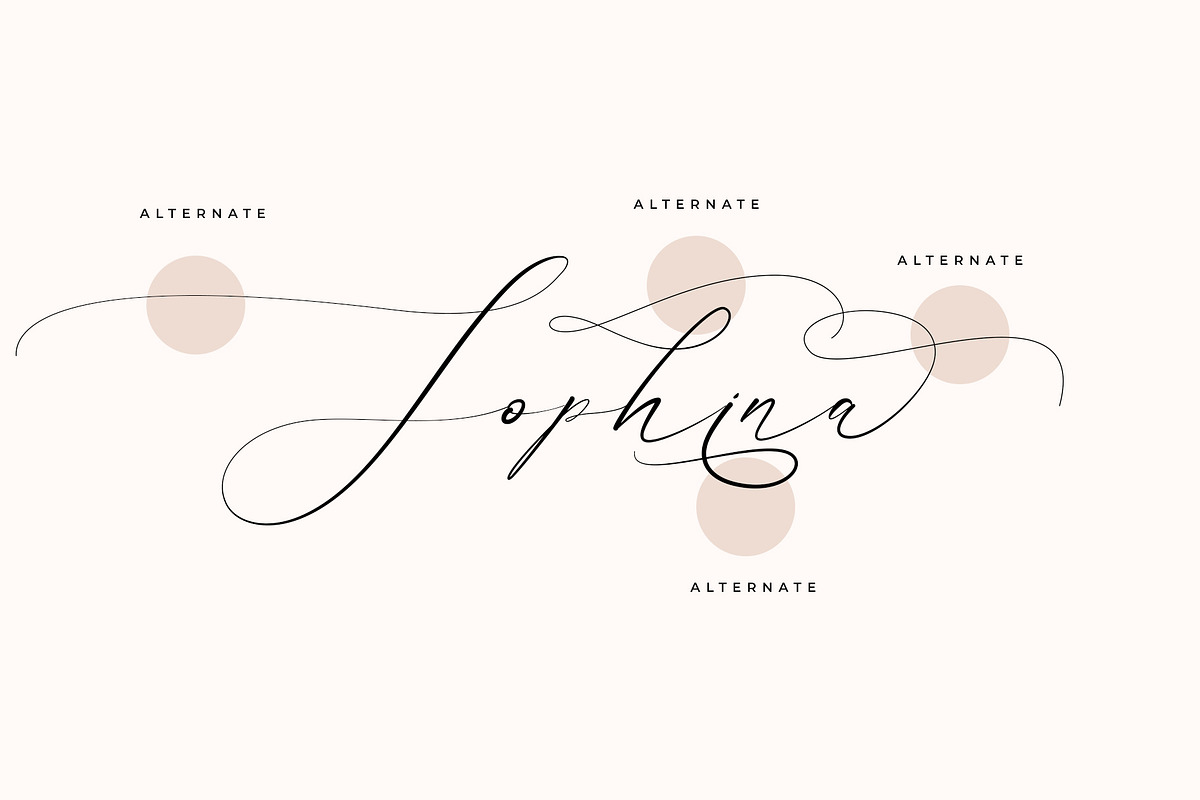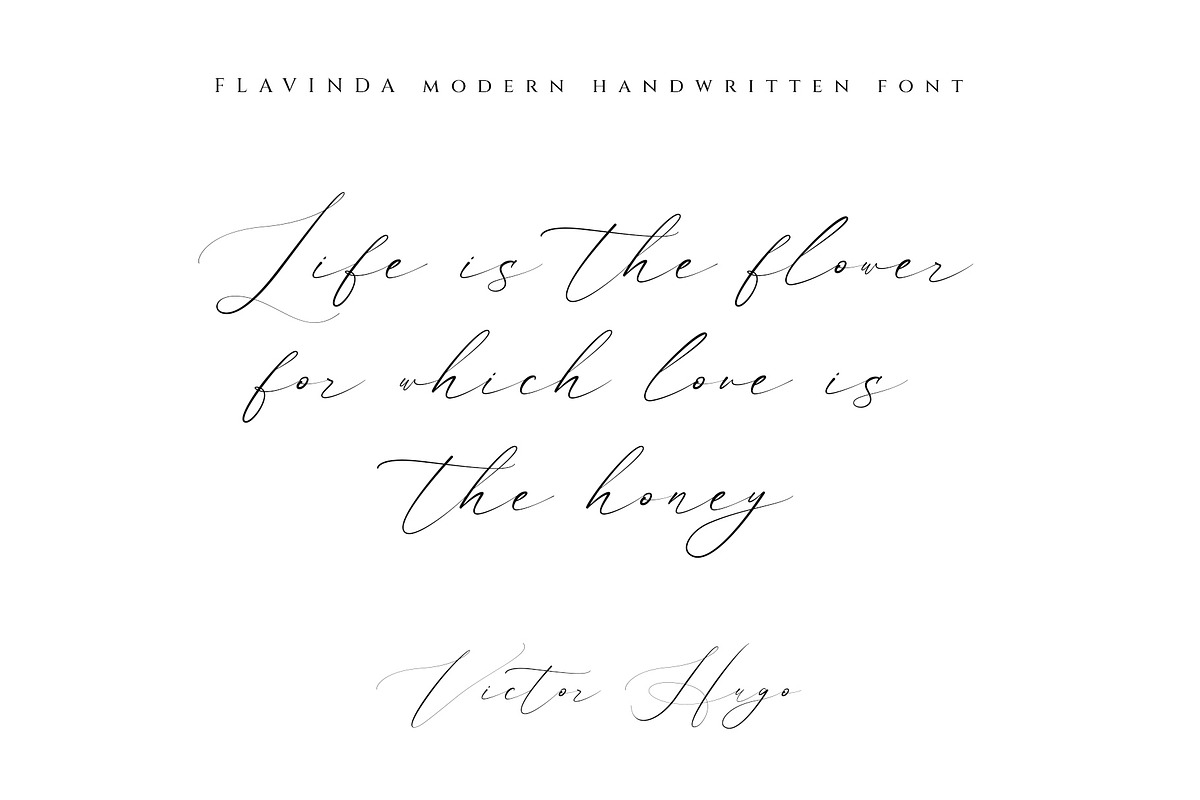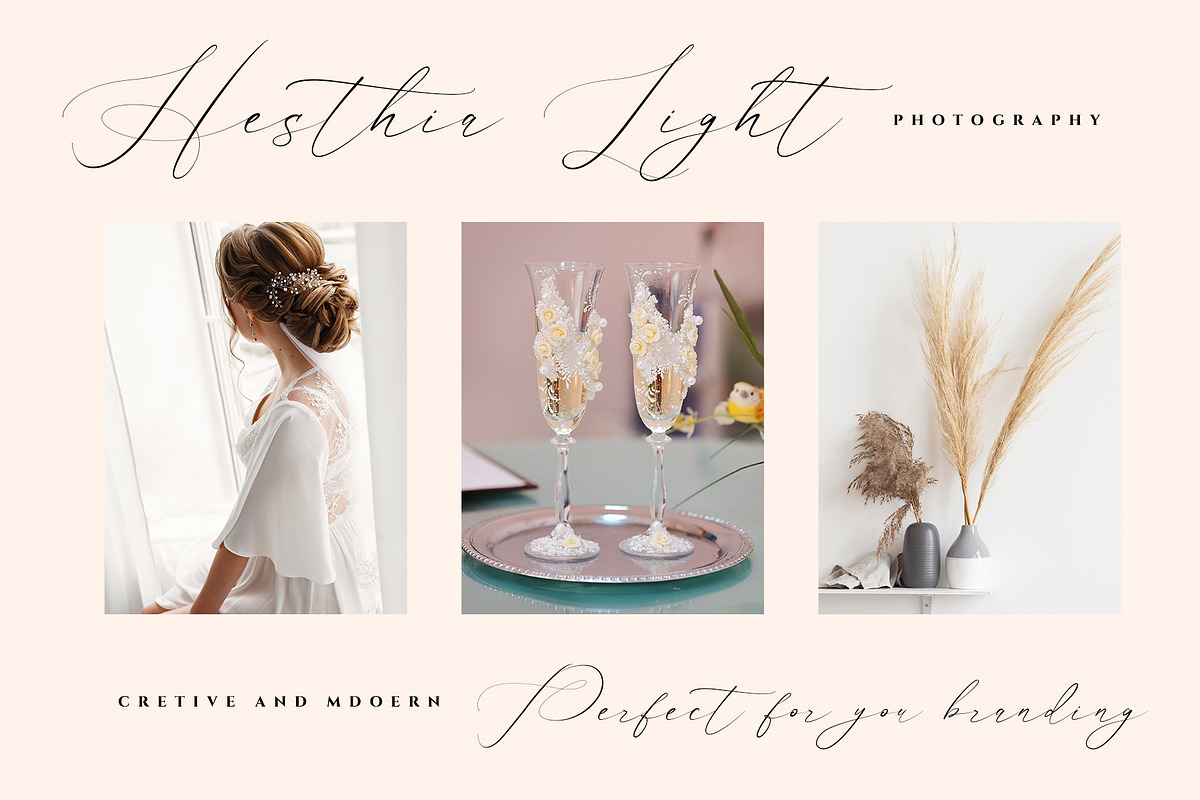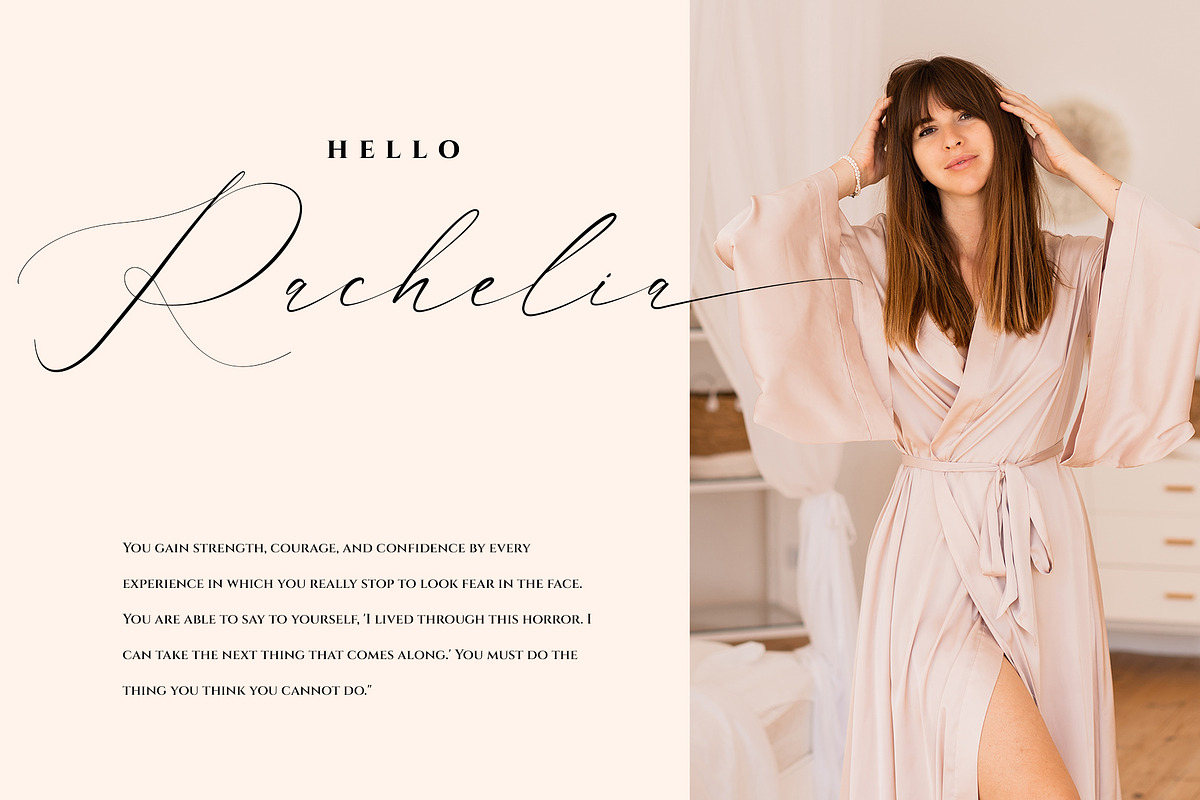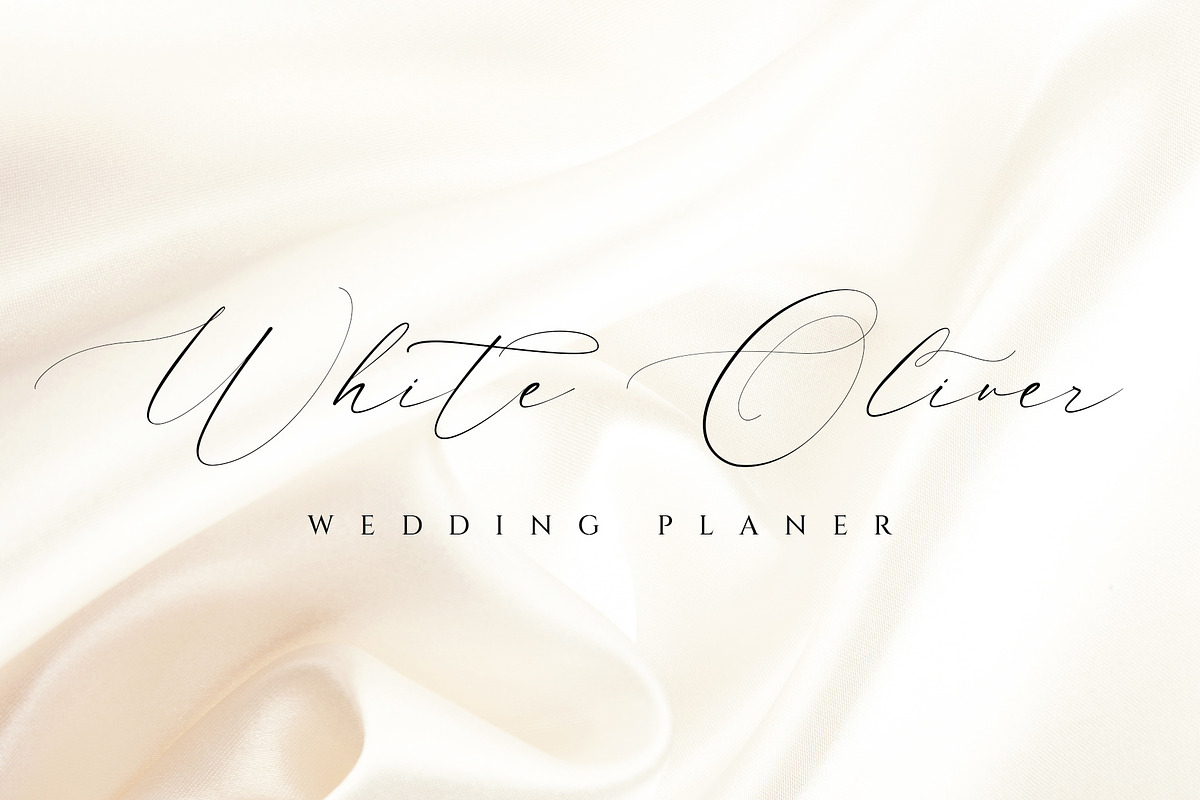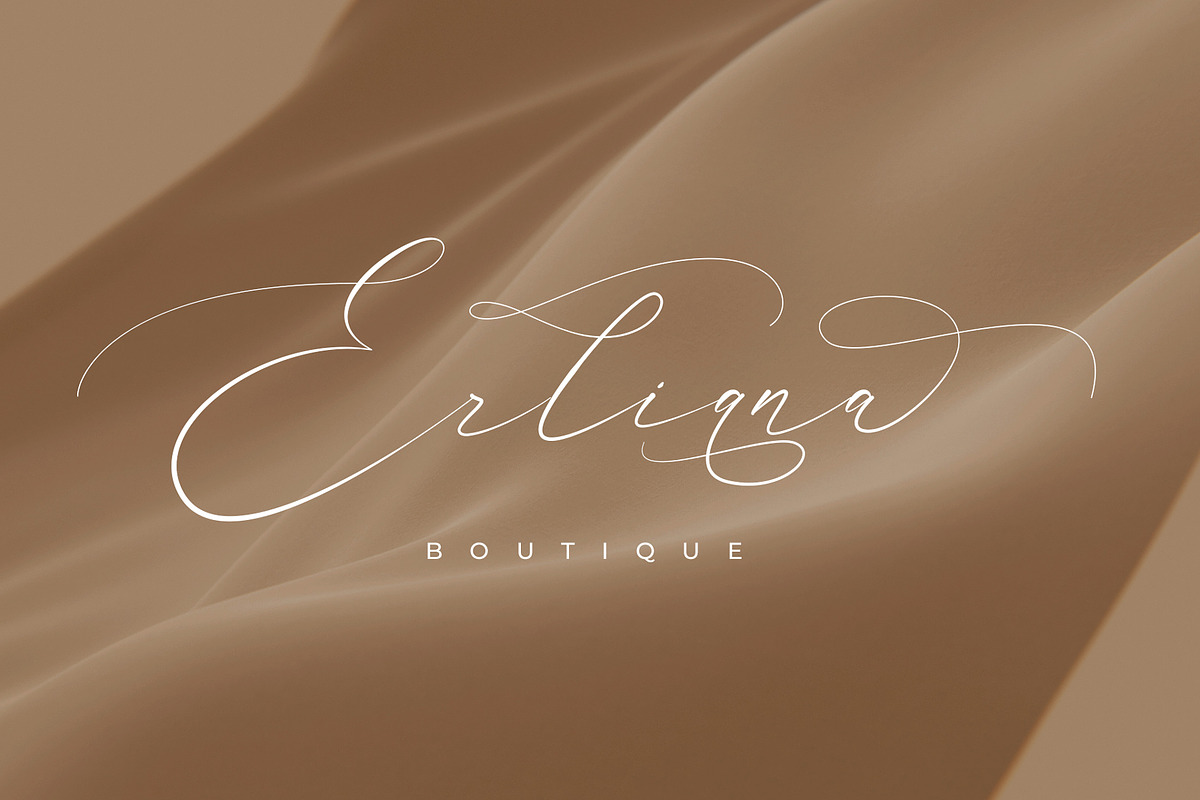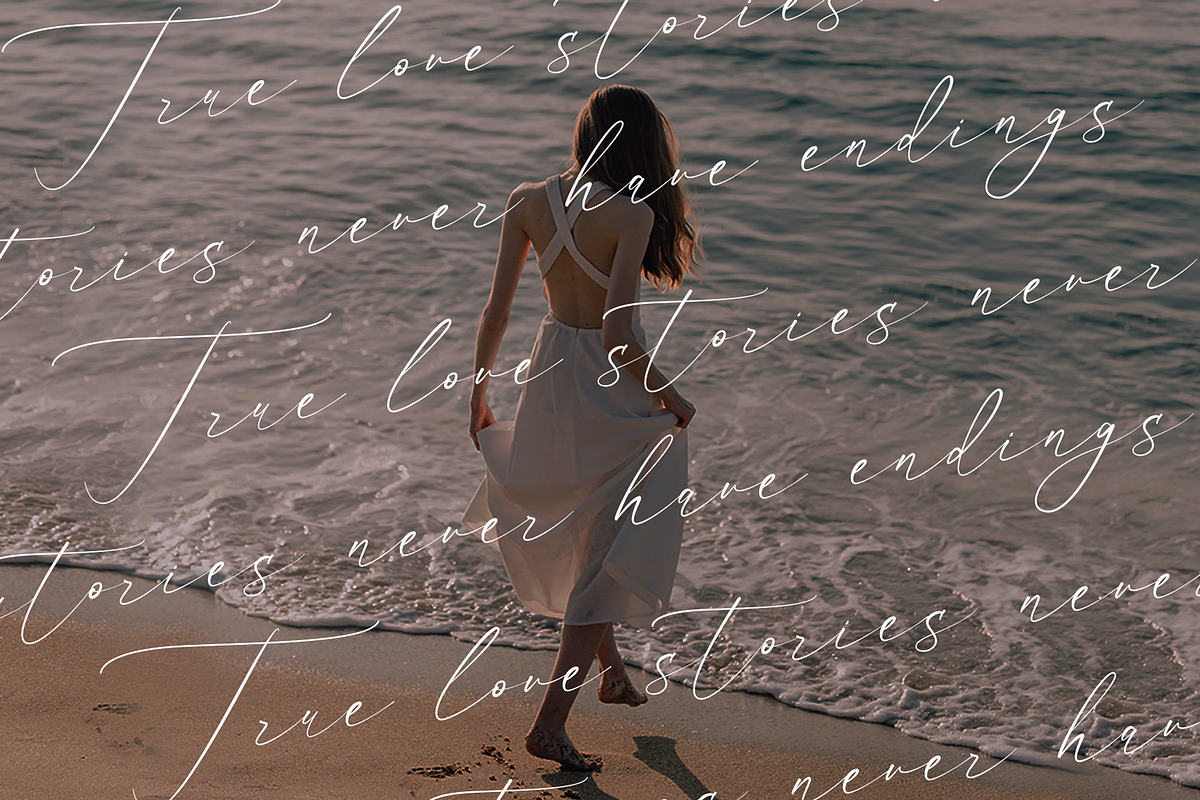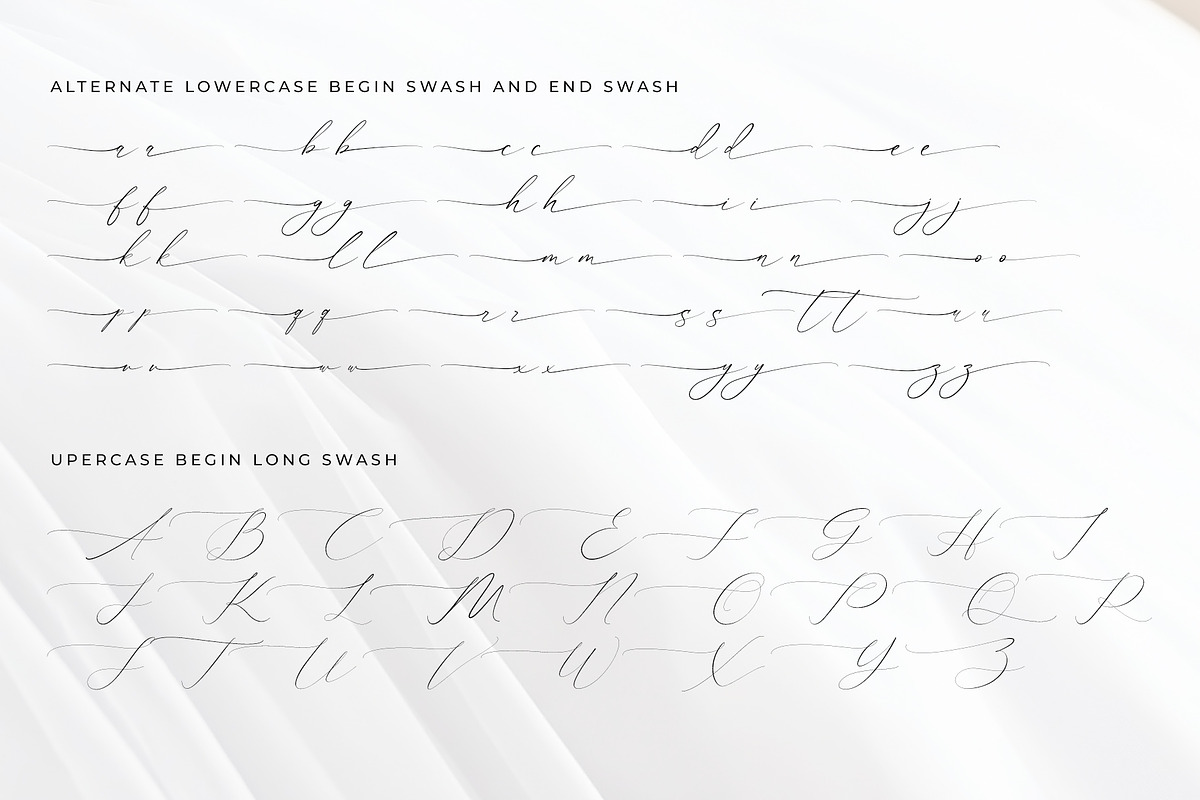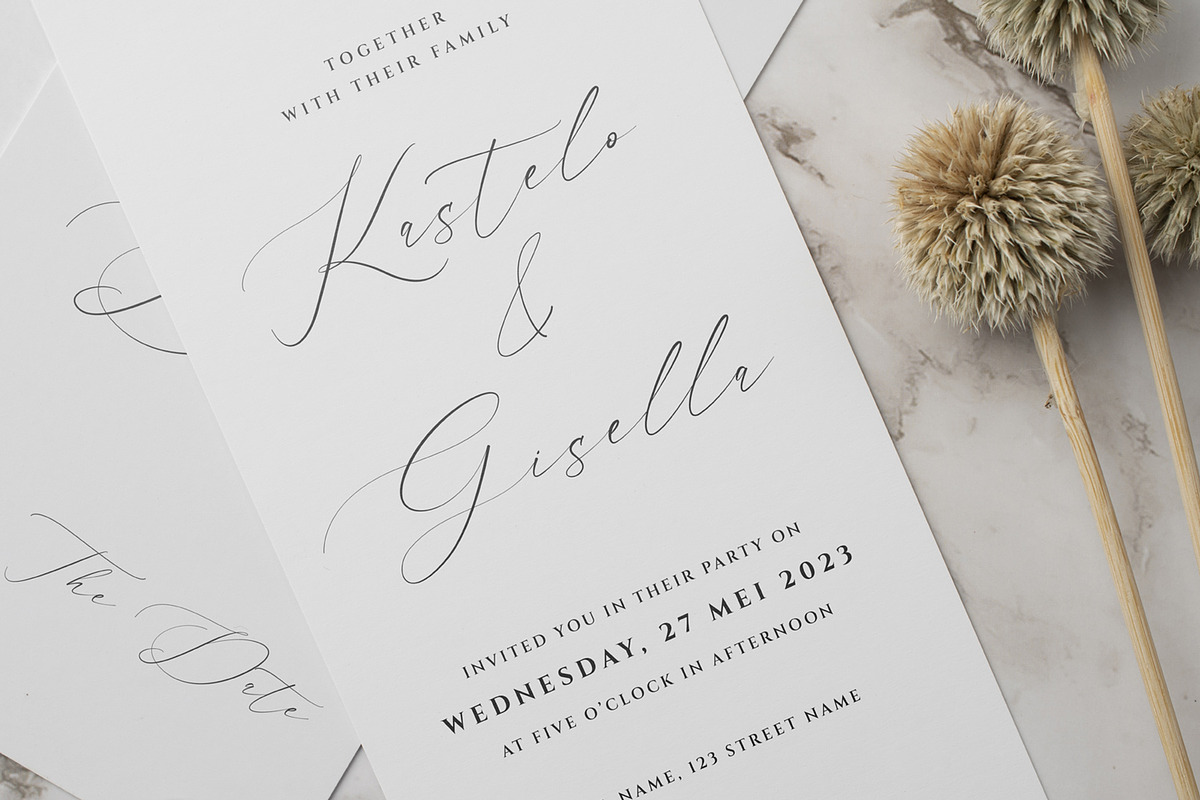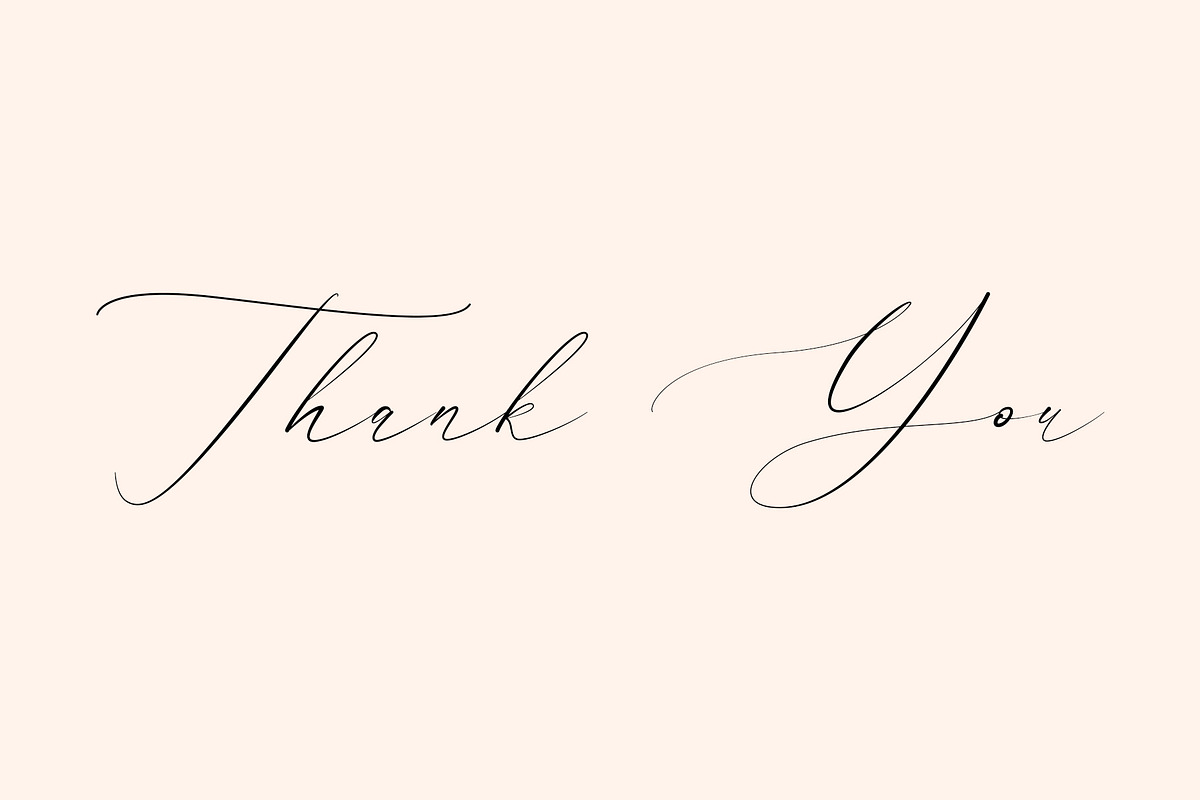
Flavinda Wedding Calligraphy Font
Flavinda is calligraphy font it's looks modern, feminine, girly, catchy and easy to use. Flavinda is the great choice for watermark on wedding organizer, signature or signature logo design, quotes, album cover, business card and many other design project.
- Alternate and ligature
- Lowercase begin swash and Lowercase end swashes
- Uppercase Begin swash
- Multilinggual support